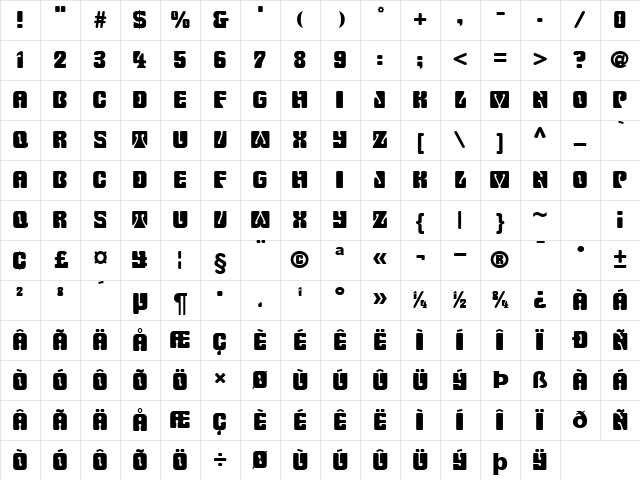
Keyhole Normal Free Font
Keyhole Normal
Keyhole Family
Keyhole Normal
Design Context for Keyhole
Keyhole is a composed and adaptable typeface that performs quietly and consistently across a wide range of design contexts.